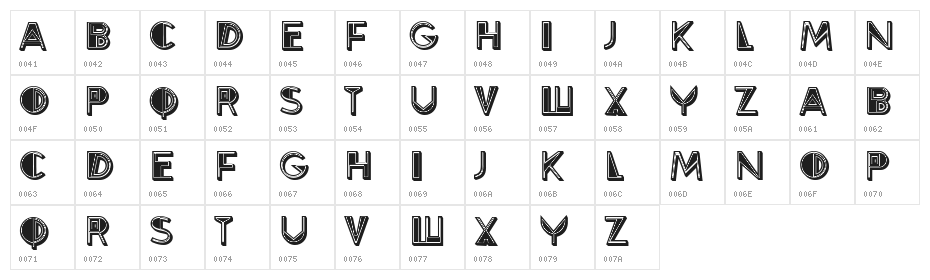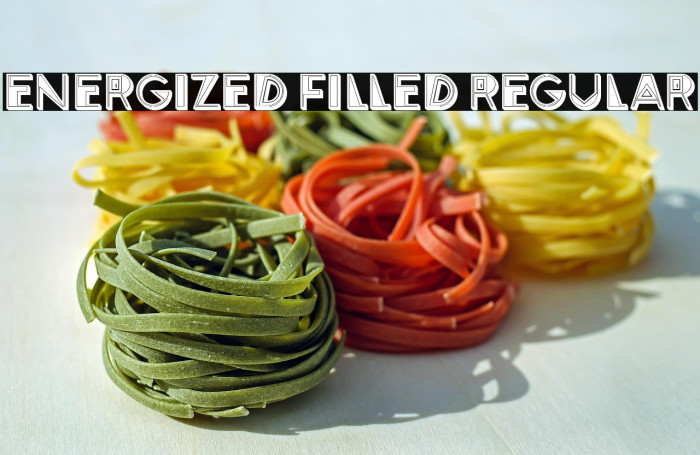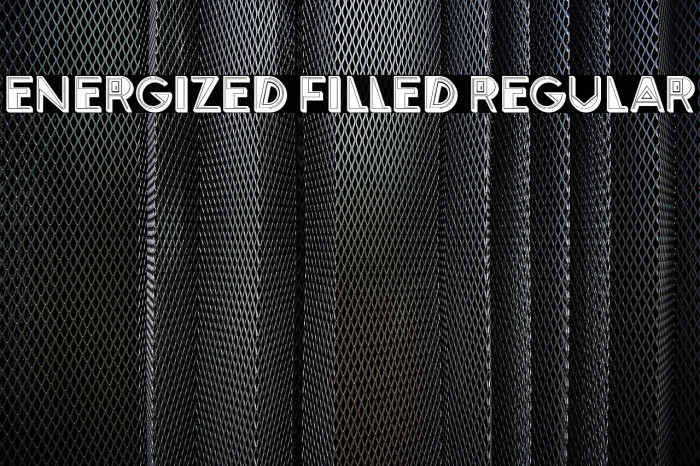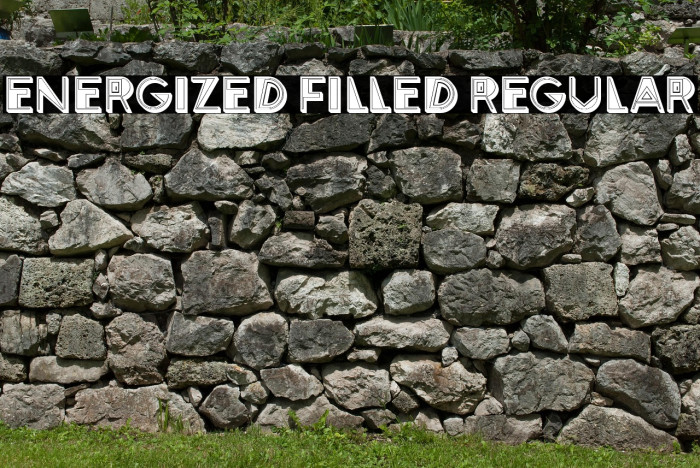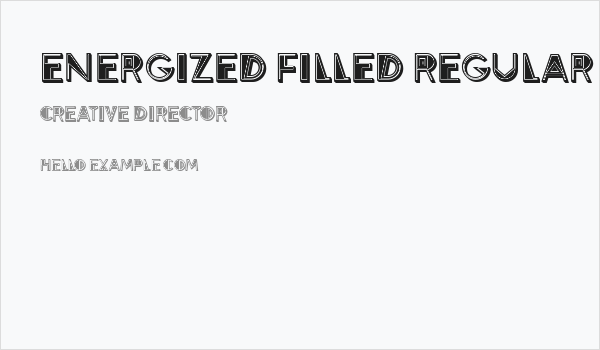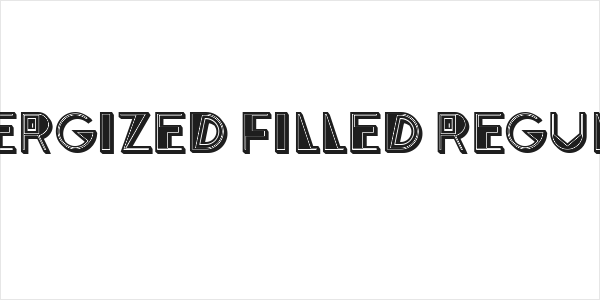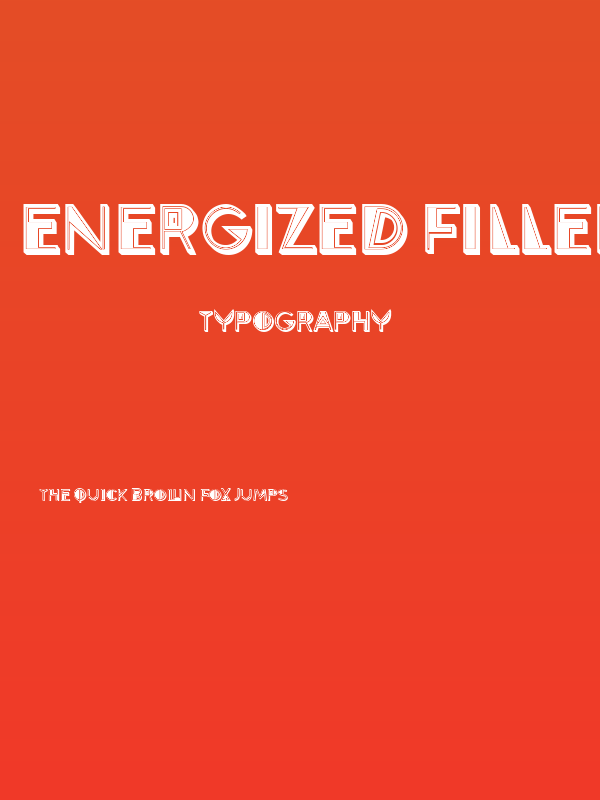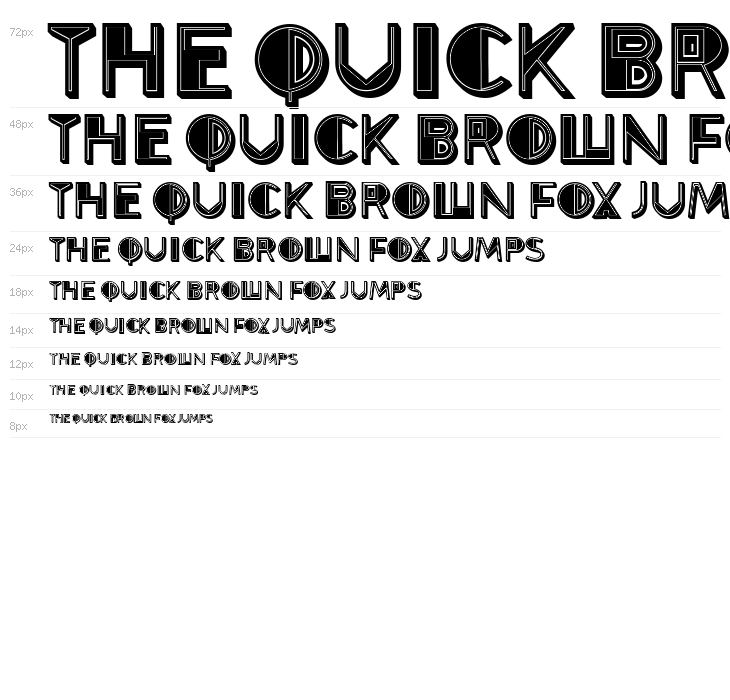
Energized Filled Regular Font
Energized Filled Regular Description
This font features a bold and dynamic design with a filled, energized appearance. Each letter is crafted with a strong geometric structure, incorporating sharp angles and clean lines. The characters exhibit a modern and futuristic style, with a unique interplay of solid and outlined sections that create a sense of movement and energy. The uppercase letters are particularly striking, with some characters featuring distinctive cutouts and diagonal elements that add to the font's visual interest. This design is well-suited for projects that require a bold and impactful statement, making it ideal for headlines, posters, and branding materials.
| Use Case | Headlines, Posters, Branding |
| Proposed Projects | Ideal for use in headlines, posters, branding, and any project requiring a bold, modern statement. |